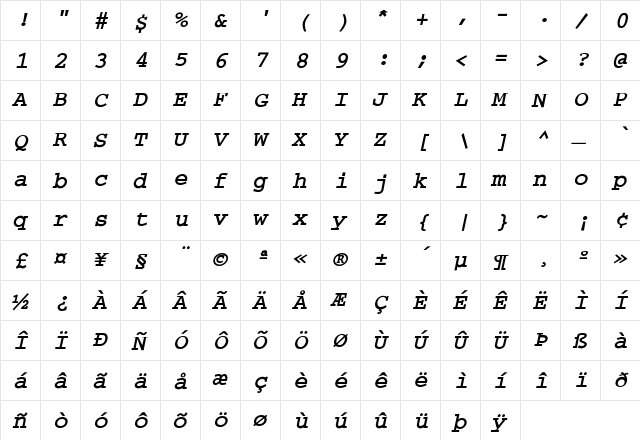
Courier-BoldOblique Regular Font Preview
Design Context for Courier-BoldOblique Typeface
Courier-BoldOblique uses fixed-width spacing throughout, giving it the structured, systematic character associated with coding environments and technical documentation. The dynamic lean of this cut emphasises speed and emphasis in any layout. The heavy weight commands attention and anchors typographic hierarchies.
A natural fit for code editors, technical documentation, developer-focused branding, and terminal-inspired UI.
Pro Tip: Pair Courier-BoldOblique with a proportional sans for UI contexts where code-style labels and regular body copy need to coexist.